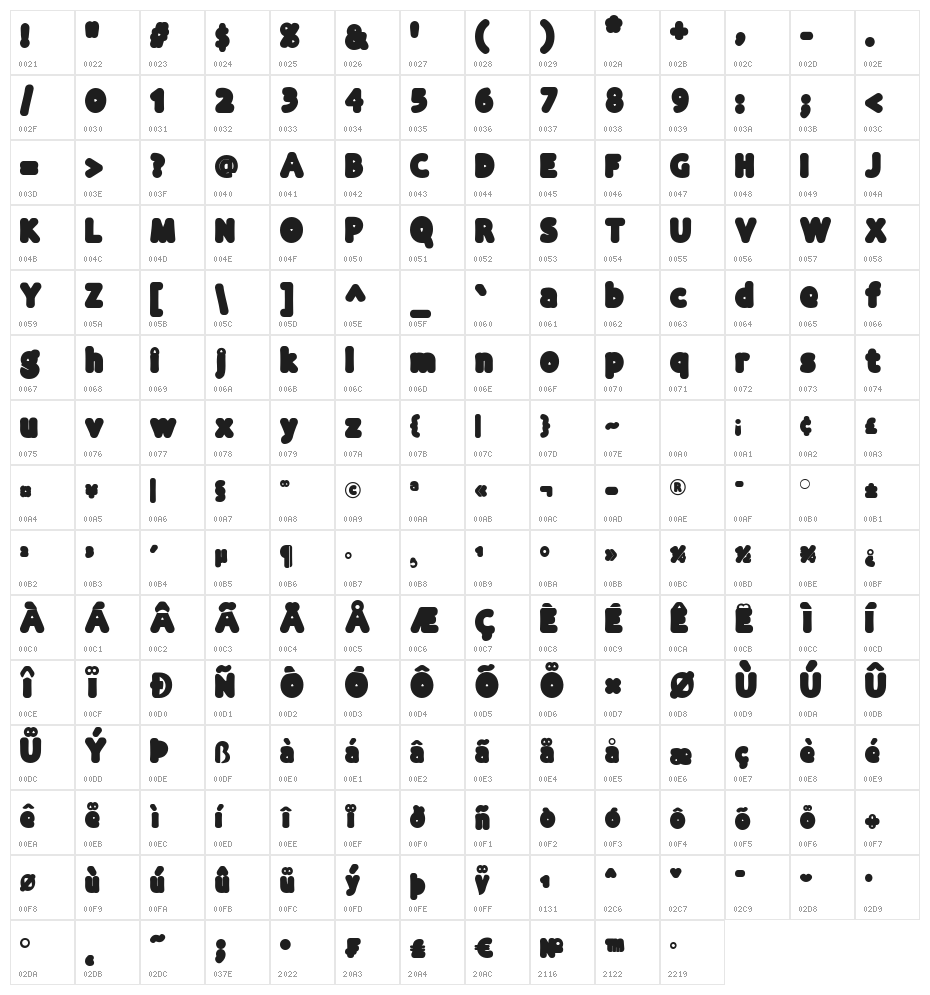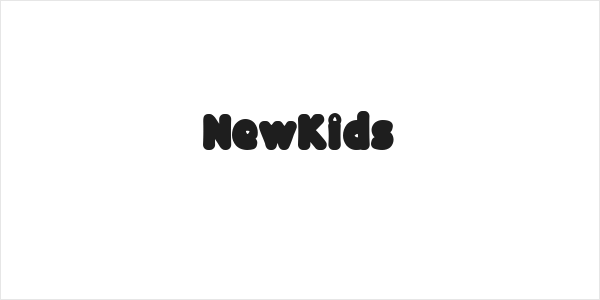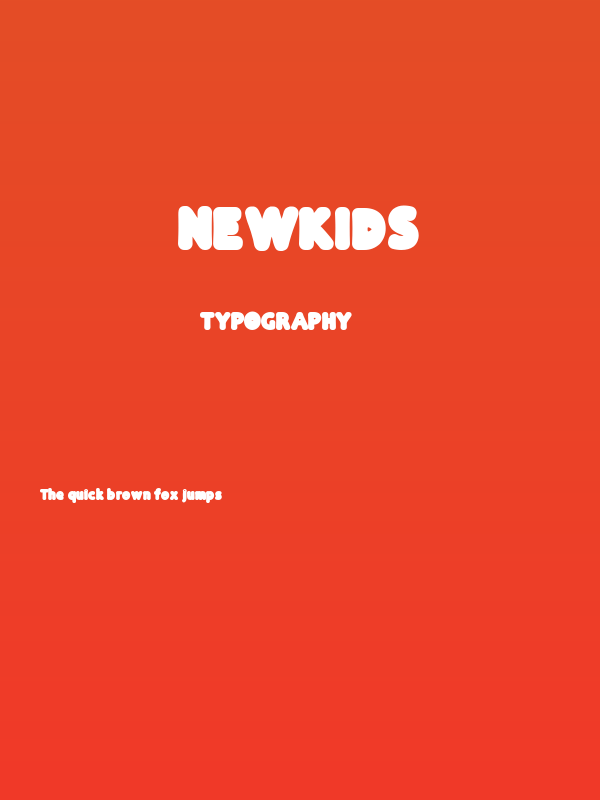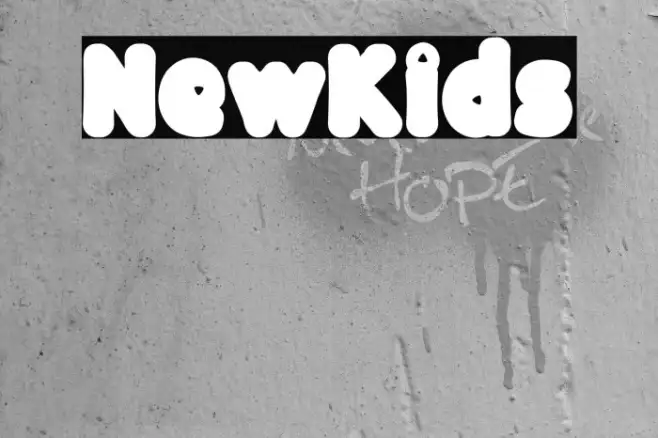
NewKids Font
NewKids Description
This playful and bold font features thick, rounded characters that exude a sense of fun and whimsy. The letters are uniformly bold, with a consistent stroke width that gives them a solid, impactful appearance. The rounded edges and bubbly form make it ideal for projects that require a friendly and approachable aesthetic. The font maintains a consistent weight across all characters, ensuring readability while adding a touch of personality. Its unique style is perfect for capturing attention and conveying a sense of joy and creativity.